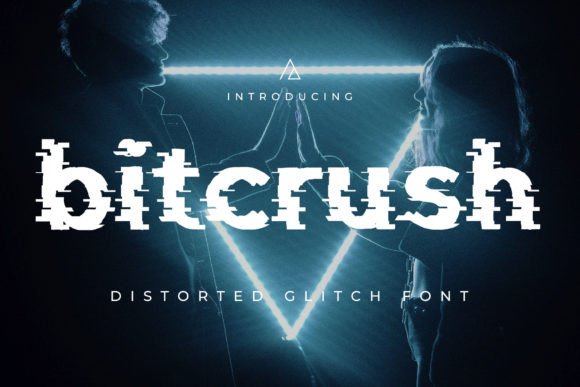
Introducing Bitcrush Font: A Bold and Striking Display Typeface
In the world of typography, fonts play a crucial role in conveying messages, expressing emotions, and creating visual identities. With the ever-evolving landscape of design, it’s essential to stay ahead of the curve with fresh and innovative typography solutions. That’s where Bitcrush Font comes in – a bold and striking display typeface that brings a touch of digital nostalgia to your designs.
The Retro Computer Aesthetic
Bitcrush Font is inspired by the retro computer aesthetic of the 80s and 90s, an era that saw the dawn of personal computing and the rise of digital technology. The font’s pixelated and glitch-inspired letterforms capture the essence of this bygone era, evoking memories of old computer screens, video games, and VHS tapes.
The retro computer aesthetic is characterized by its use of pixel art, 8-bit graphics, and distorted digital signals. This visual style has seen a resurgence in popularity in recent years, with many designers and artists incorporating retro elements into their work. Bitcrush Font is a perfect representation of this aesthetic, with its chunky pixels and distressed texture.
Design Features of Bitcrush Font
Bitcrush Font is a carefully crafted display typeface that boasts a range of design features that make it perfect for eye-catching headlines, logos, and posters. Some of its key features include:
- Pixelated letterforms: Each letterform in Bitcrush Font is made up of chunky pixels, giving it a distinctive retro look.
- Glitch-inspired design: The font features intentional glitches and distortions, adding to its digital nostalgia.
- Bold and striking: Bitcrush Font is designed to make a statement, with bold and striking letterforms that demand attention.
- Unique character set: The font includes a range of characters, symbols, and punctuation marks, making it versatile for various design applications.
Perfect for Creative Projects
Bitcrush Font is perfect for a range of creative projects, including:
- Headlines and titles: Use Bitcrush Font to create eye-catching headlines and titles that grab attention.
- Logos and branding: The font’s unique design makes it ideal for logos and branding projects that require a bold and striking visual identity.
- Posters and flyers: Bitcrush Font is perfect for posters and flyers that need to stand out from the crowd.
- Digital art and graphics: The font’s pixelated design makes it a great fit for digital art and graphics projects.
Adding a Unique and Edgy Flair
Bitcrush Font adds a unique and edgy flair to your creative projects, setting them apart from the rest. The font’s bold and striking design ensures that your audience takes notice, transporting them back to the exciting world of vintage technology.
In a world where design trends are constantly evolving, Bitcrush Font offers a refreshing and retro twist that will make your designs stand out. Whether you’re a designer, artist, or marketer, this font is sure to inspire your creativity and add a touch of digital nostalgia to your work.
Tips for Using Bitcrush Font
Here are some tips for using Bitcrush Font effectively in your designs:
- Use it sparingly: Bitcrush Font is a bold and striking font, so use it sparingly to avoid overwhelming your design.
- Experiment with colors: The font’s pixelated design looks great with bright, bold colors that match the retro aesthetic.
- Combine with other fonts: Bitcrush Font pairs well with other fonts, so experiment with combining it with different typefaces to create visual interest.
- Pay attention to legibility: While Bitcrush Font is designed to be bold and striking, make sure it’s still legible, especially at smaller sizes.
In conclusion, Bitcrush Font is a bold and striking display typeface that brings a touch of digital nostalgia to your designs. With its pixelated and glitch-inspired letterforms, this font captures the essence of a retro computer aesthetic, perfect for eye-catching headlines, logos, and posters.
Whether you’re a designer, artist, or marketer, Bitcrush Font is a versatile and creative solution that adds a unique and edgy flair to your projects. So why not give it a try and take your audience back to the exciting world of vintage technology?